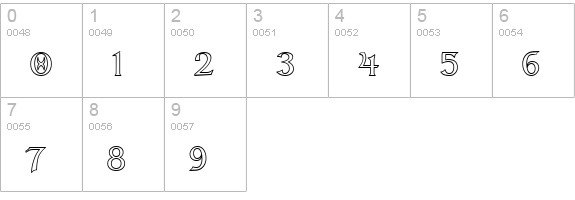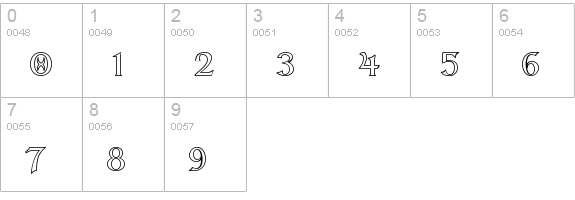
Dumbledor 3 Outline Font Details
Dumbledor 3 Outline is a striking and elegant display font that exudes a sense of magic and sophistication. Its intricate outlines and bold letterforms make it perfect for adding a touch of whimsy to any design project. This unique font is free to download at FontsMarket.com, making it accessible to all designers and creatives looking to elevate their work with a touch of enchantment. With Dumbledor 3 Outline, your projects are sure to stand out and captivate audiences with its charm and personality.